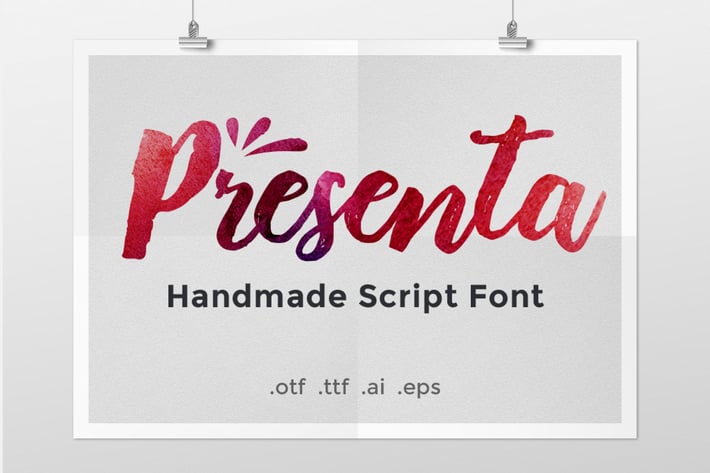
Presenta – Handmade Script Font
Presenta is handmade script font. Perfect for invitations, stationery, packaging, greeting cards, websites, and much more. Design unique souvenirs such as cups, bags, pillows, t-shirts, etc. Your imagination is not limited!
Elements
1. Lowercase
2. Uppercase
3. Ligatures
4. Ornaments